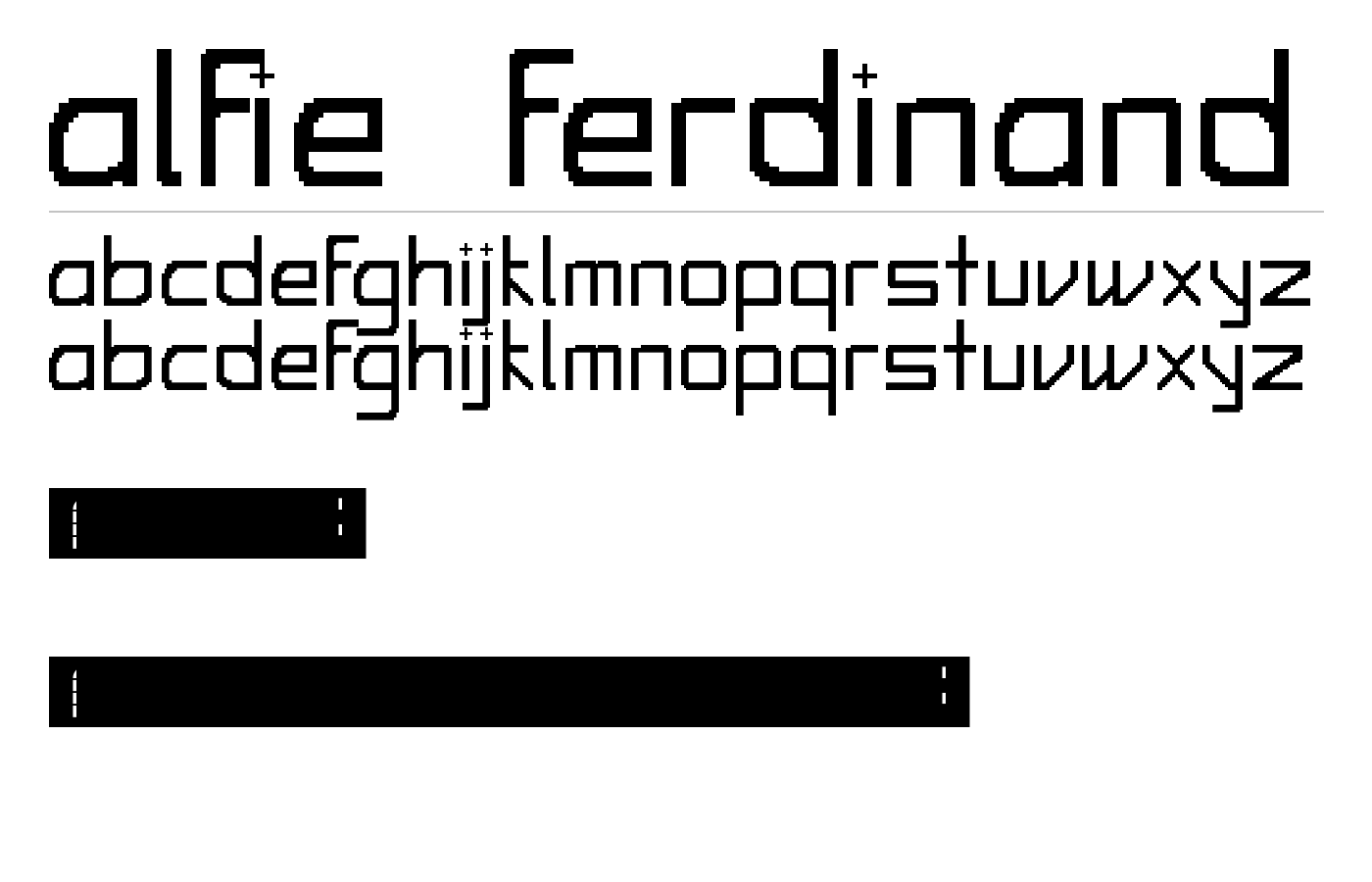
Alfie Ferdinand is a modern, geometric sans serif font characterized by its clean, pixel-inspired letterforms with consistent stroke weight and a narrow width. Its sharp, blocky shapes give it a digital or tech-forward personality, making it ideal for use in digital interfaces, gaming, and futuristic branding. This font works best in headlines and logos where its unique, stylized appearance can stand out and add a contemporary, tech-savvy vibe.
Alfie Ferdinand Font
About Alfie Ferdinand Font